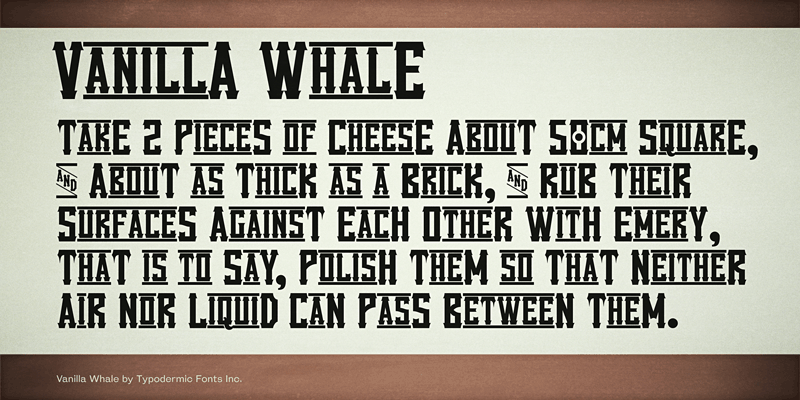
Preview and download Vanilla Whale Font. Created by Typodermic Fonts in Fancy Western styles with 100% Free license.
Vanilla Whale is not a cowboy font. Even if you think it’s a cowboy font it is definitely not one of those. Why would you even think that? TrY PuttinG CapitalS at ThE BeginninG AnD EnD of EacH WorD. This font includes a license that allows free commercial use: sometimes referred to as a desktop license. This allows you to install the font on a computer and use it to create posters, web graphics, game graphics, t-shirts, videos, signs, logos and more. Read the license agreement for details. If you'd like to embed this font in an app, ebook, on the web or anything that's not covered by the desktop license agreement, visit the link below. You'll find distributors who offer different types of licenses or you can contact me for help. http://typodermicfonts.com/vanilla-whale/ |